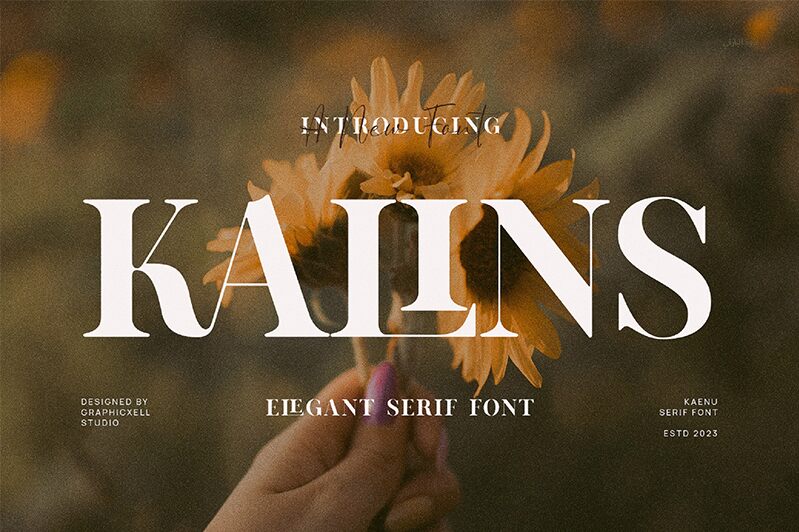
Kalins font is an elegant serif design inspired by the sophistication and timeless charm of classic typography. Created by Graphicxell, this font exudes a refined and polished look, perfect for those seeking a font with a formal and stylish touch. With its ornate details and sophisticated flair, Kalins is a versatile typeface that captures the essence of traditional design principles.
Its elegant features make it ideal for use in branding projects, logo design, high-end product packaging, wedding invitations, book titles, and fashion magazines. Other ideas include business cards, website headlines, social media content, event brochures, and editorial layouts.